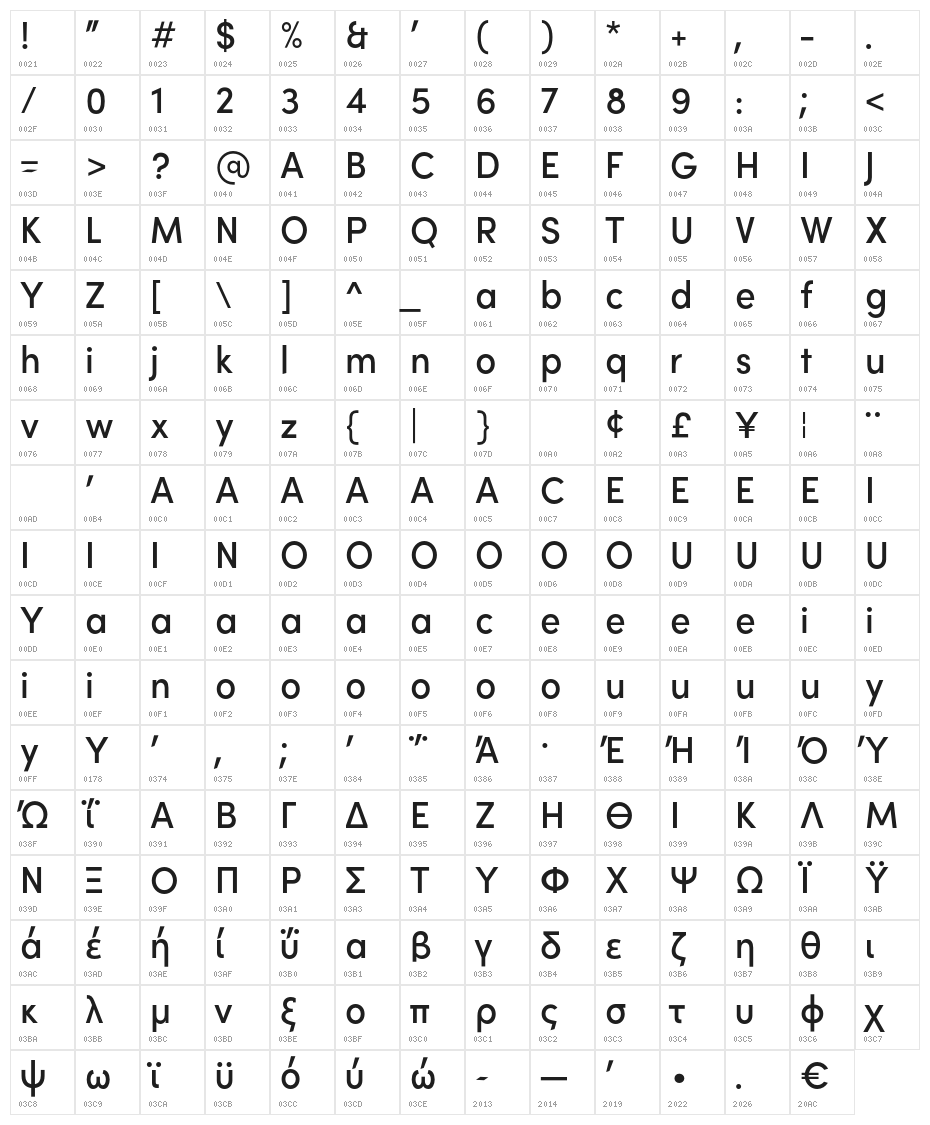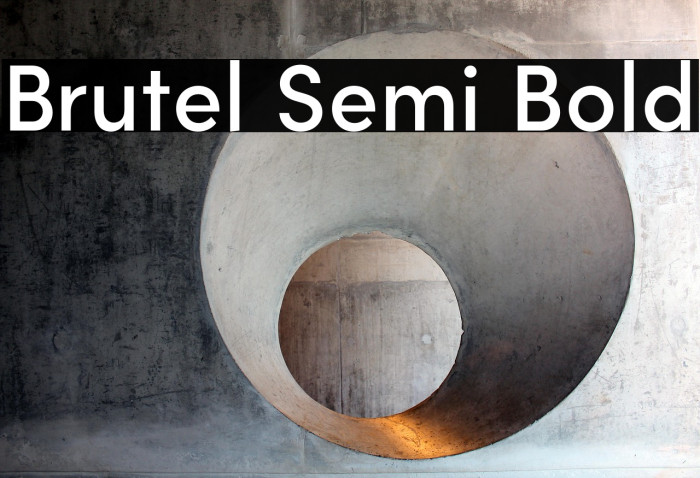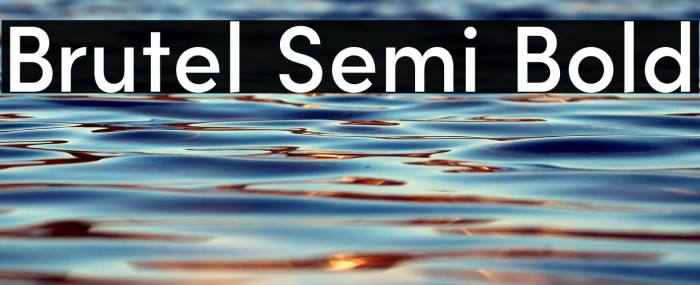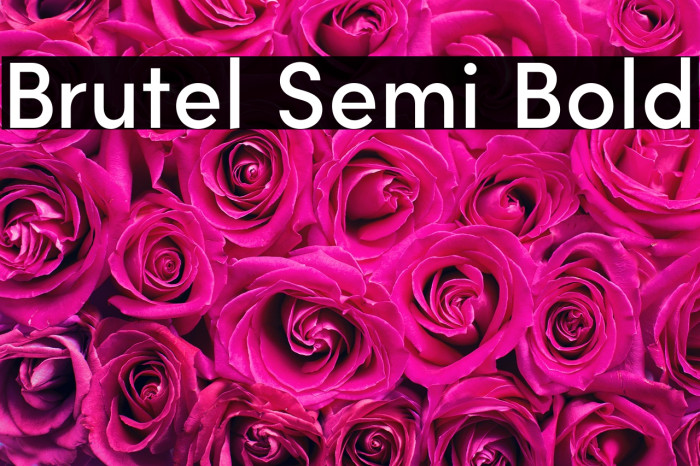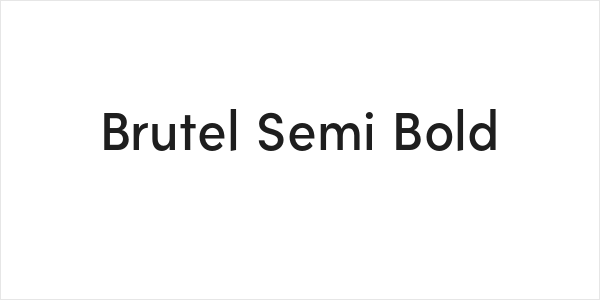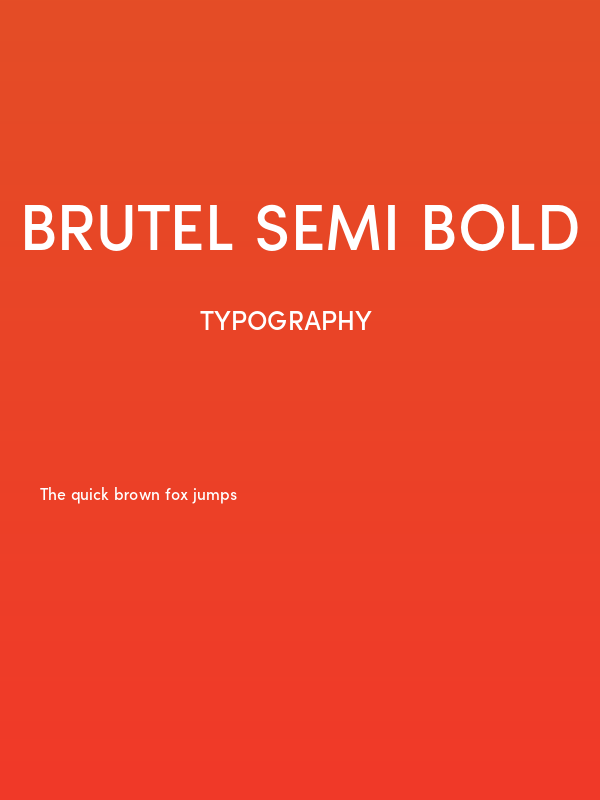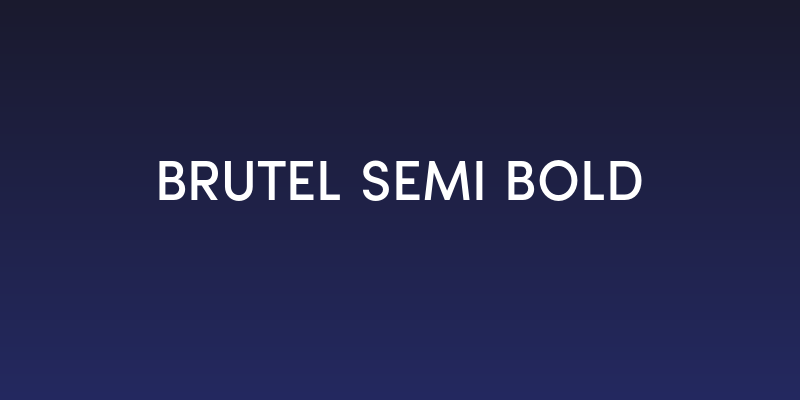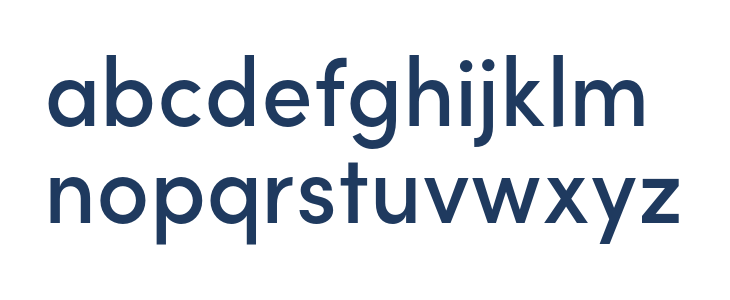
Brutel Semi Bold Font
Brutel Semi Bold Description
This font features a clean and modern sans-serif design with uniform stroke widths, giving it a sleek and contemporary appearance. The characters are well-proportioned, with a slightly geometric feel that enhances readability. The uppercase letters are bold and assertive, while the lowercase letters maintain a friendly and approachable look. The numerals are clear and distinct, making them suitable for various applications. Special characters are designed with simplicity and clarity in mind, ensuring they blend seamlessly with the rest of the font.
| Proposed Projects | Ideal for branding, digital interfaces, advertising, and editorial design. |